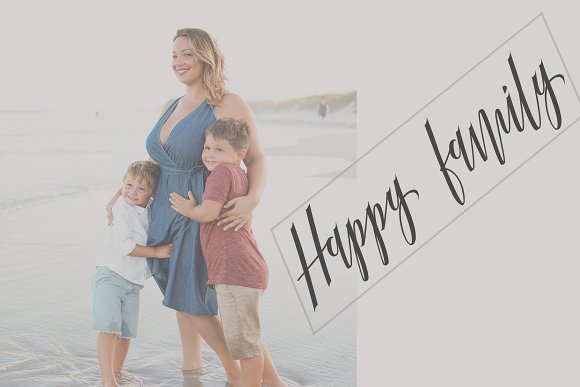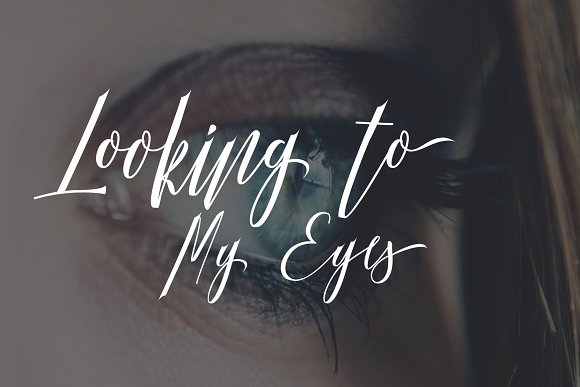
Hellarria Script Font
Hellarria Modern Calligraphy. This font was designed by handwriting, and it has a modern and unique forms of calligraphy, the writing style is very natural.
JoeeCreative